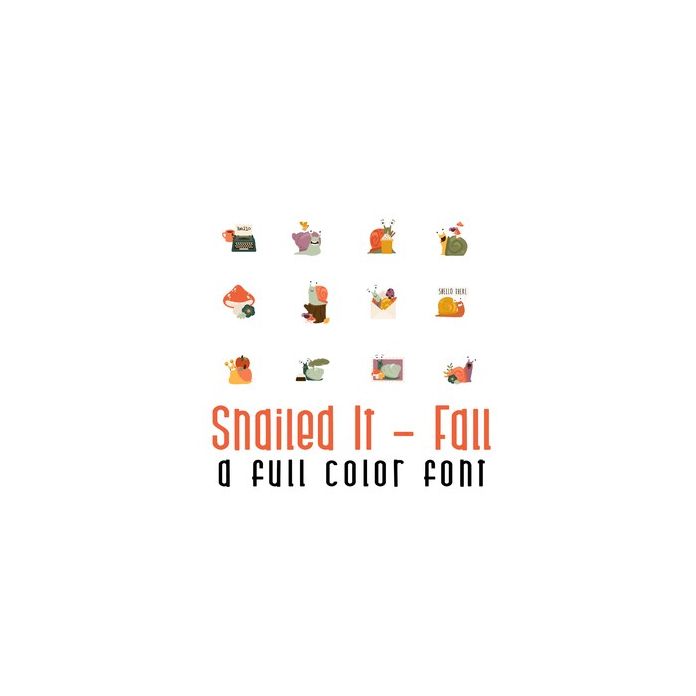
This adorable full-color doodlebat font features 26 snails ready for Autumn. Perfect for cards, crafts, gifts, decor, planner stickers, scrapbook pages and more!